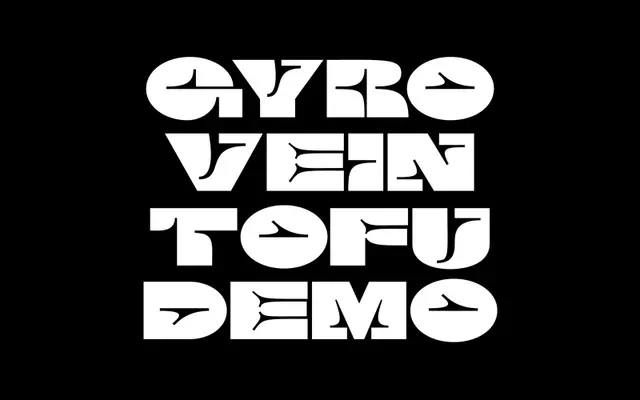
A two-style display family that pairs an extreme, symbol-like Super cut with a neutral Regular for contrast-driven typographic work.
Tabi offers two stylistically opposed cuts: the Super style pushes conventional letterforms toward abstract, illustrative shapes suited to large-scale and poster work, while the Regular provides a clean, neutral companion for mixing or grounding compositions. The family has been used by Apple Music, suggesting currency in commercial branding contexts. With 365 glyphs and broad Latin coverage across over 80 languages, it is practically equipped despite its expressive intent.
Tabi is explicitly a display family, with a Super style that pushes letterforms toward illustrative, cryptic symbols, and a Regular that acts as a neutral counterpart. The extreme stylistic contrast and large-scale intent place it firmly in display.